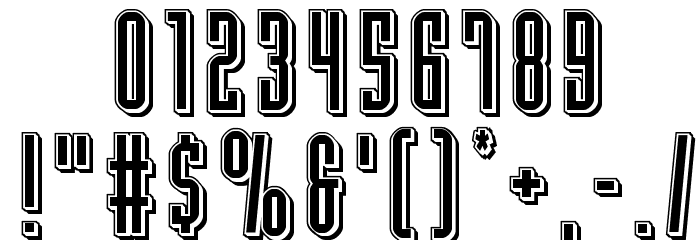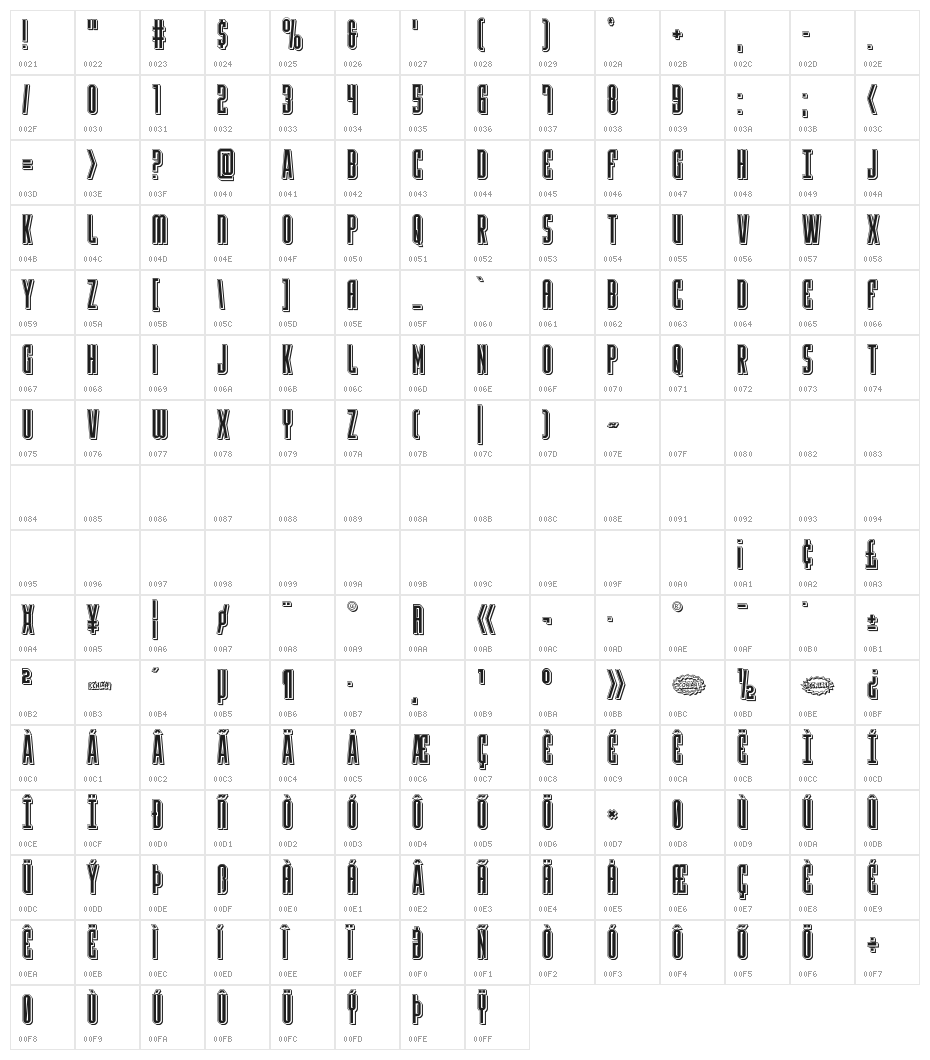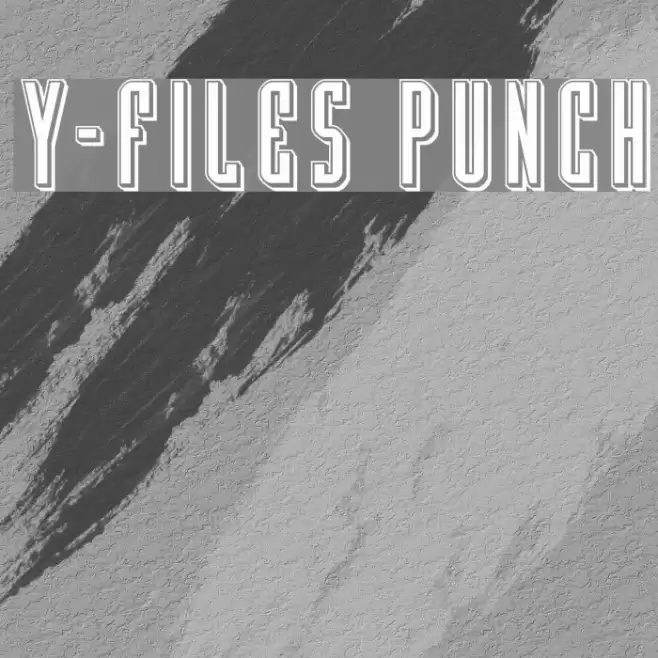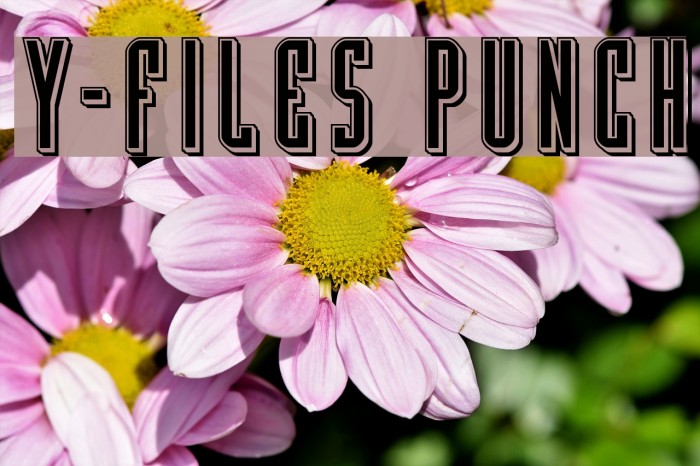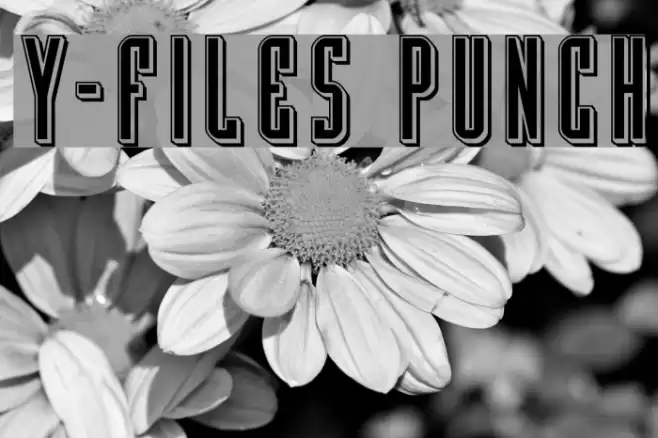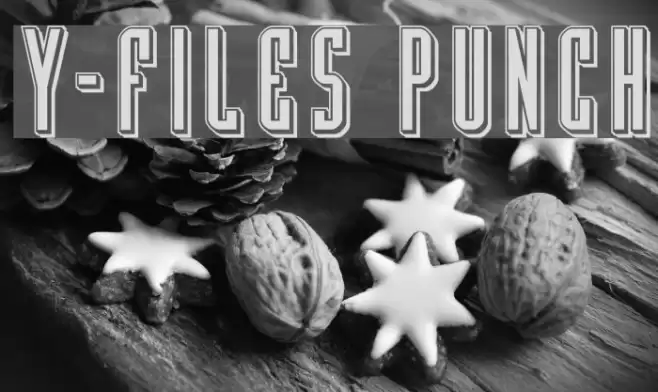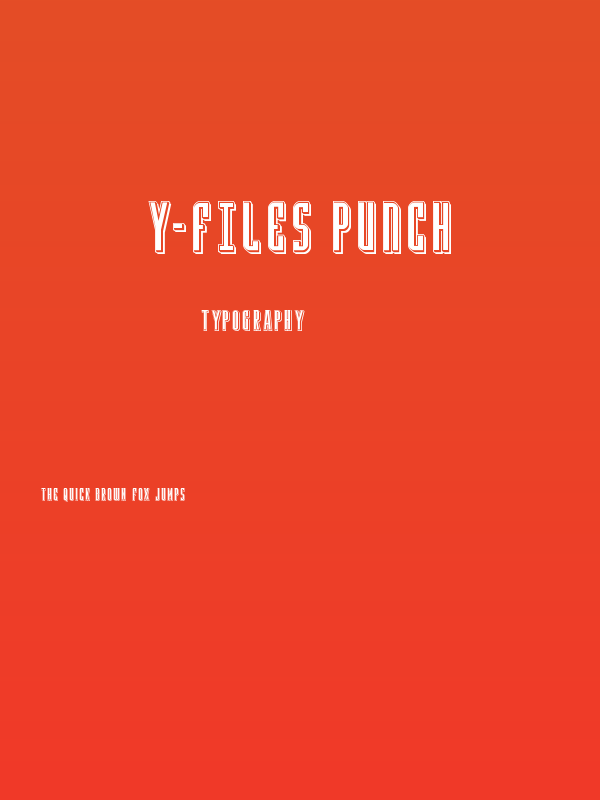
Y-Files Punch Font
Y-Files Punch Description
This font features a bold, geometric design with a strong presence. The characters are outlined, creating a striking contrast between the solid interior and the bold outer lines. The uppercase and lowercase letters maintain a consistent height, giving a uniform appearance. The numerals and special characters follow the same style, ensuring cohesion across all elements. The font's design is reminiscent of retro or vintage styles, yet it maintains a modern edge with its clean lines and structured form. The spacing between characters is tight, adding to its compact and impactful look.
| Overall Style | Vintage, Modern |
| Proposed Projects | Ideal for posters, logos, headlines, and any design requiring a bold, eye-catching typeface. |